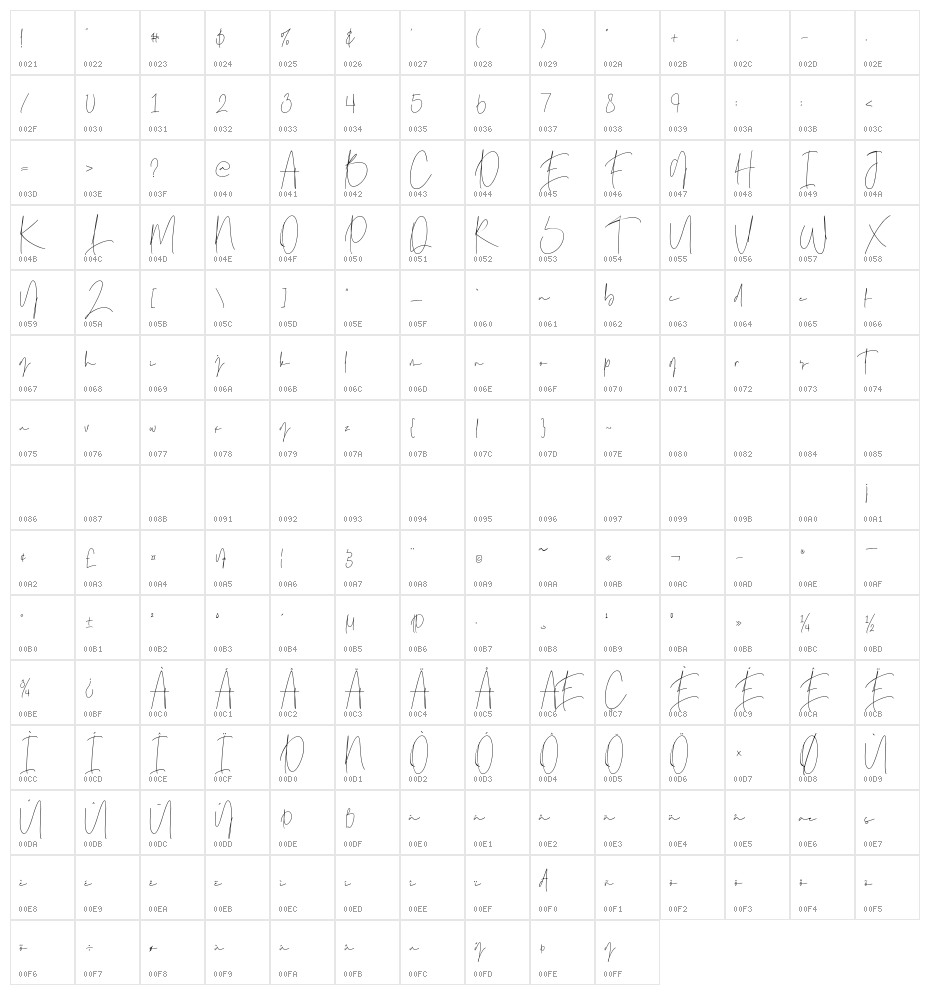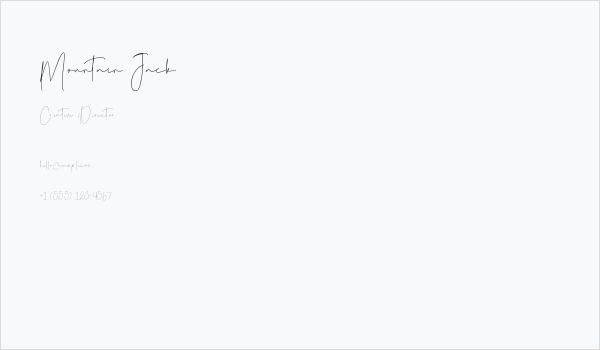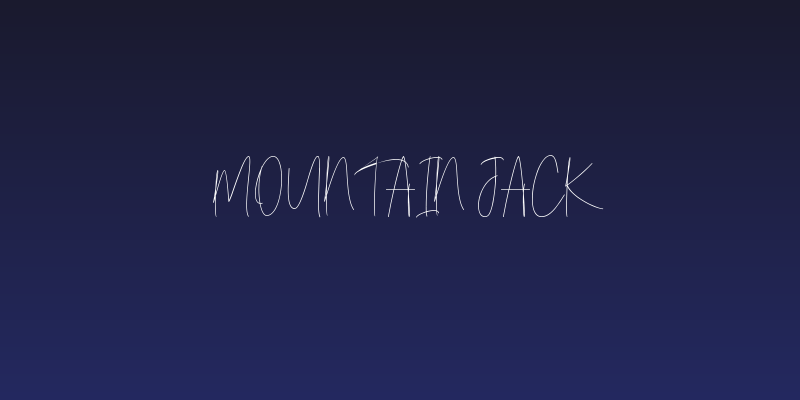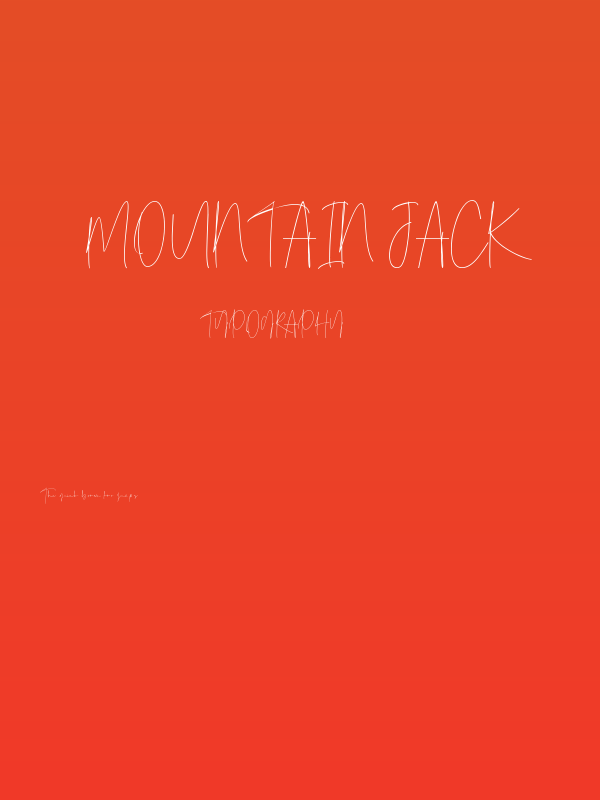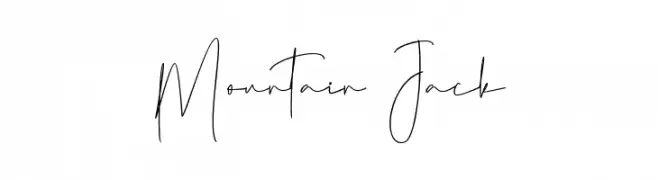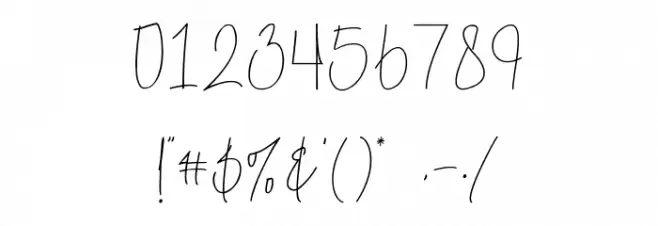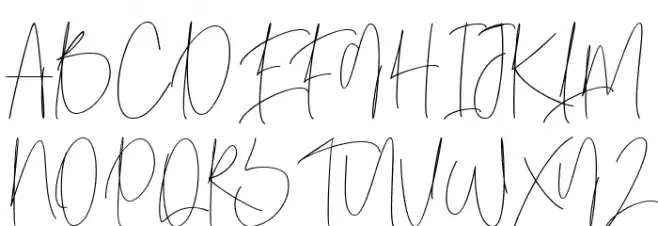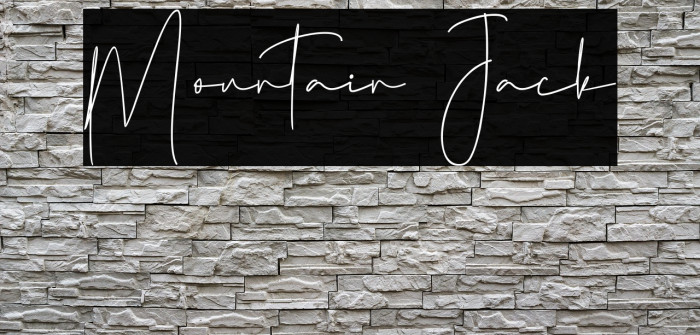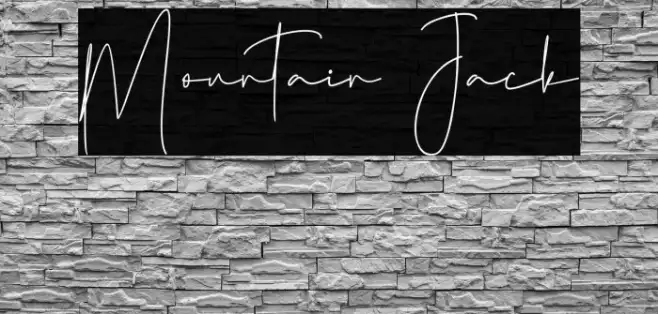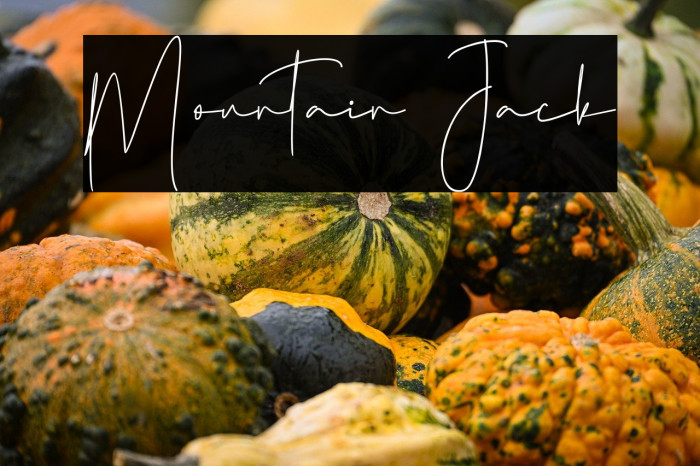
Mountain Jack Font
Mountain Jack Description
A handwritten, cursive style font with a casual, sketchy appearance, featuring thin, elongated strokes and a slightly irregular baseline.
| Overall Style | Casual, Artistic, Handwritten |
| Use Case | Personal notes, invitations, artistic projects, informal branding |